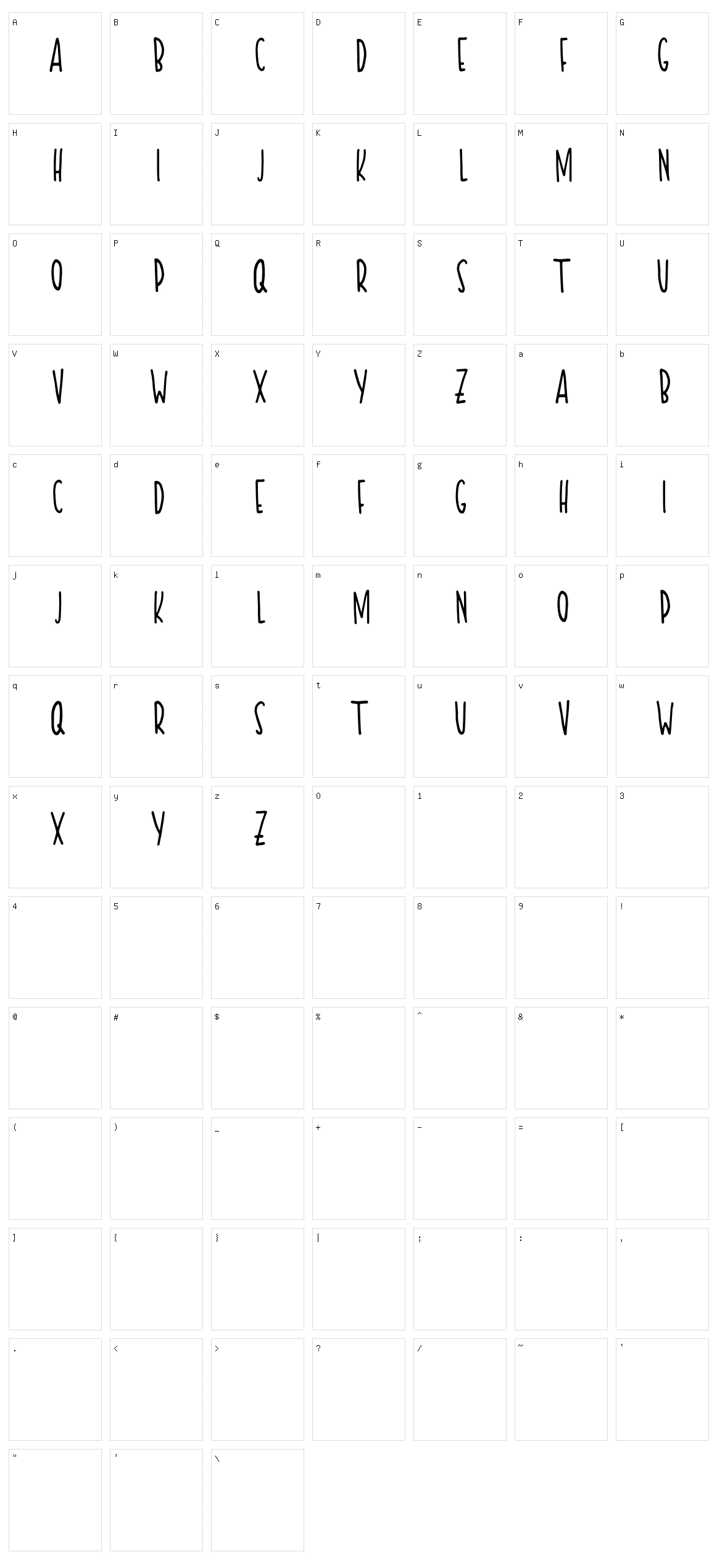
The free font Summer Mornings is carefully designed by Abi, showcasing a thoughtful balance of creativity and usability and falls under the Script font style. When you download the ZIP file, it contains only 5.34 KB of font files, making it lightweight and quick to download. Please review the license details below to understand permitted usage and distribution rights. If license information is not available, we recommend using this font for personal projects only or contacting the author directly for commercial usage permissions.